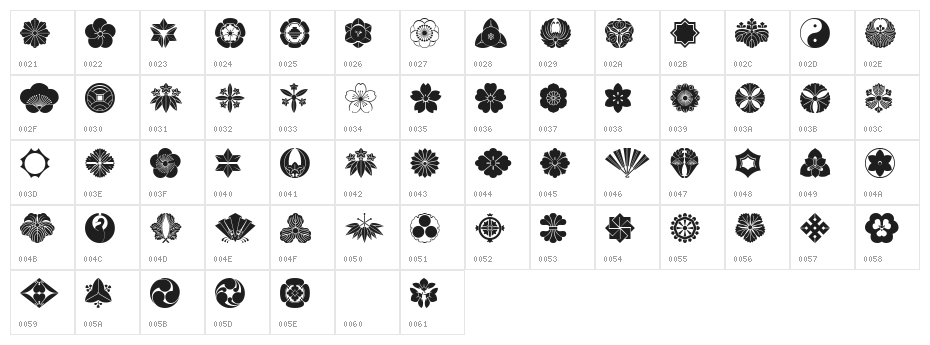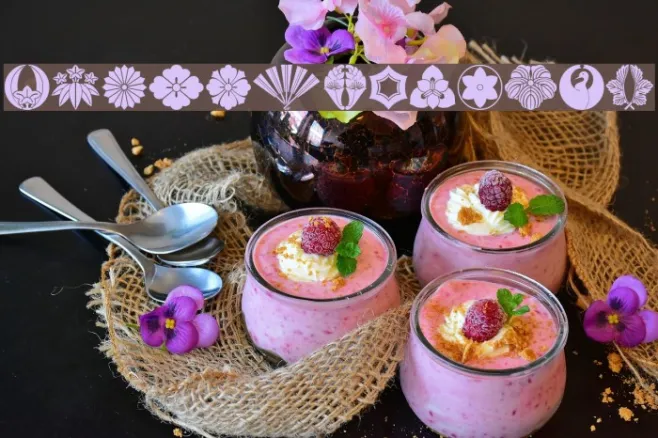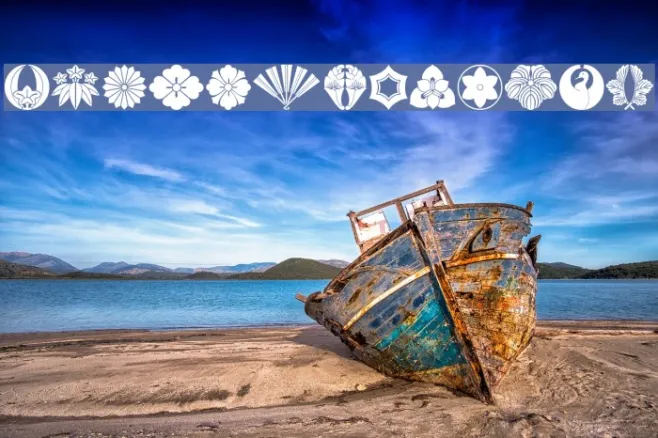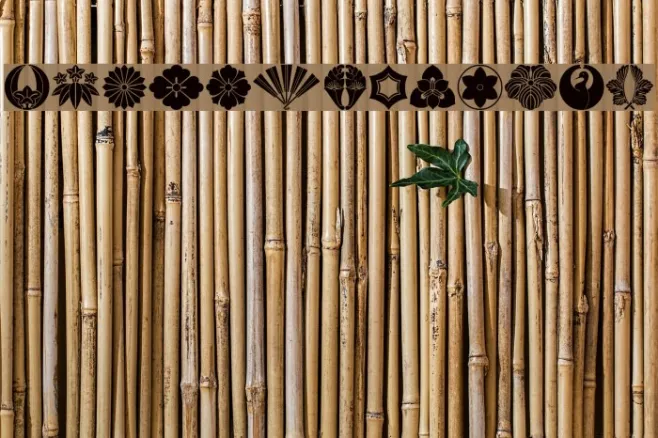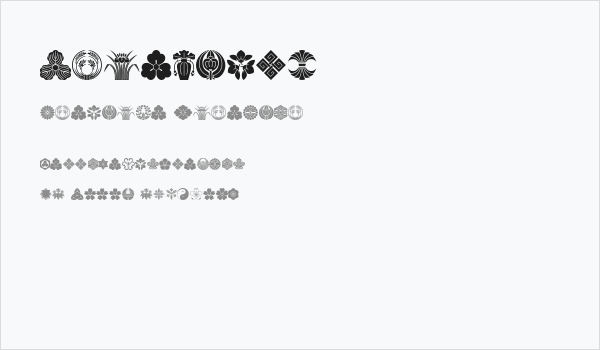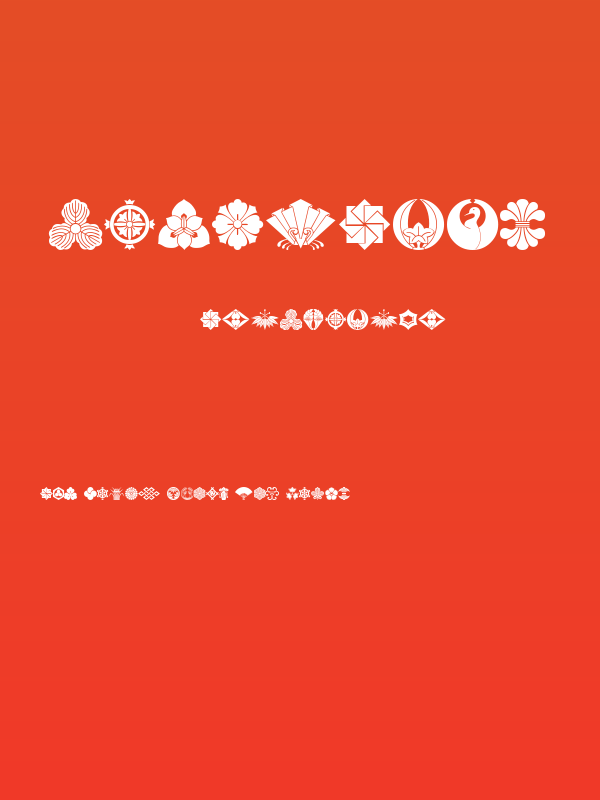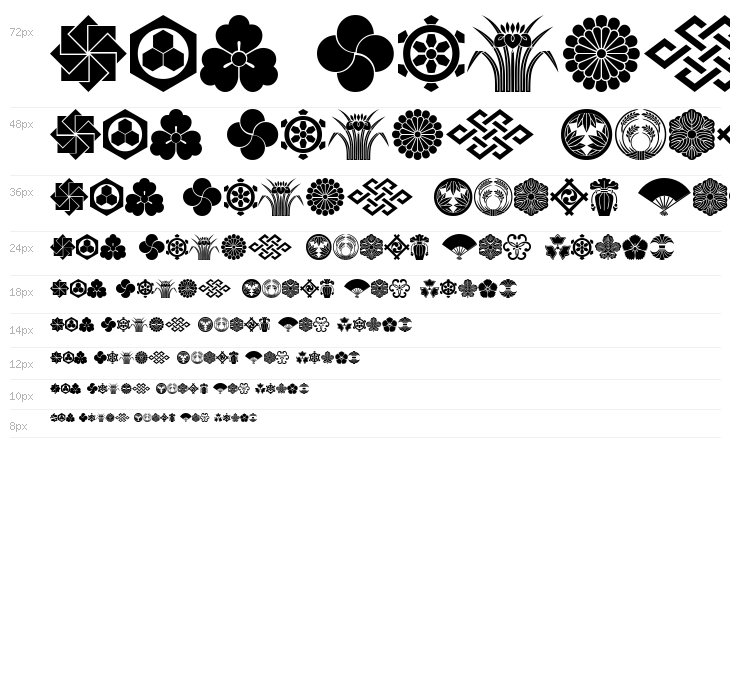
Orientals Font
A collection of intricate, ornamental symbols inspired by traditional East Asian motifs, featuring floral, geometric, and fan designs with bold, high-contrast black and white fills. The symbols are highly decorative, with a strong emphasis on symmetry and stylized natural elements.
Overall StyleDecorative, Traditional, Ornamental
Use CaseLogos, Decorative borders, Branding, Posters
Proposed ProjectsBranding, packaging, textile patterns, invitations, cultural event materials, logo design.